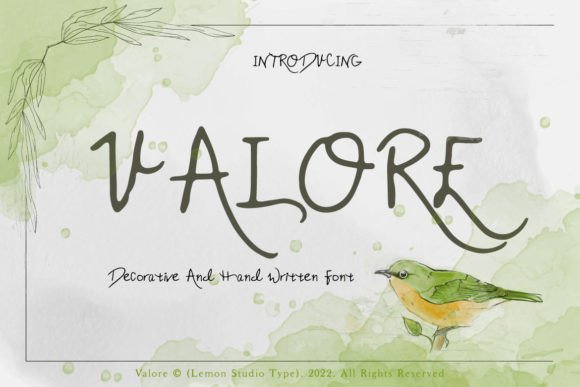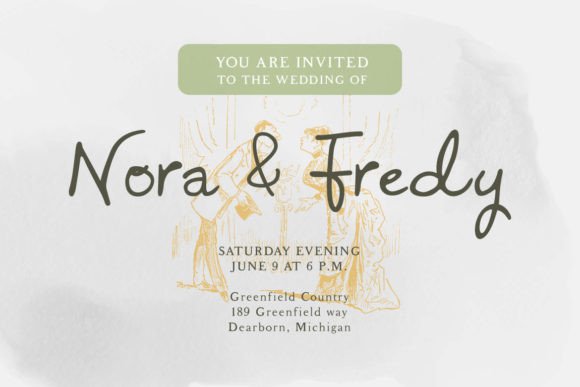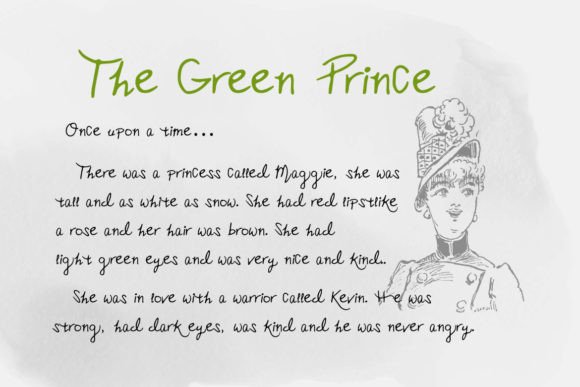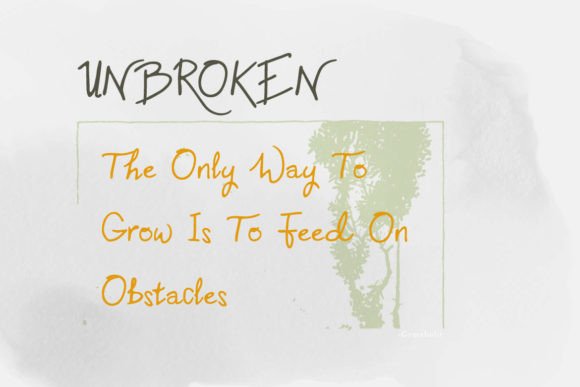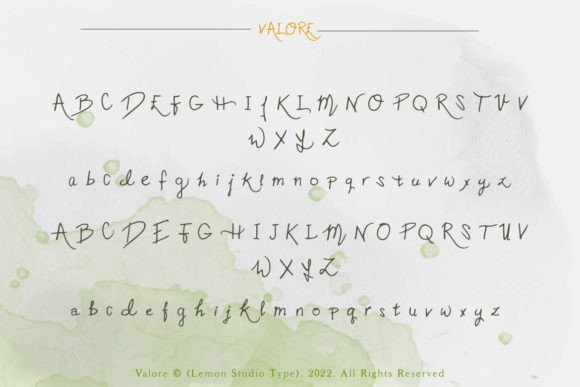
About Valore Font
Valore is a handwritten font that brings a strong retro style with memories from years past.
Valore is perfect for wedding designs, headings, covers, old magazines, and fairy tale books, or any project you need to get a little more retro in style.